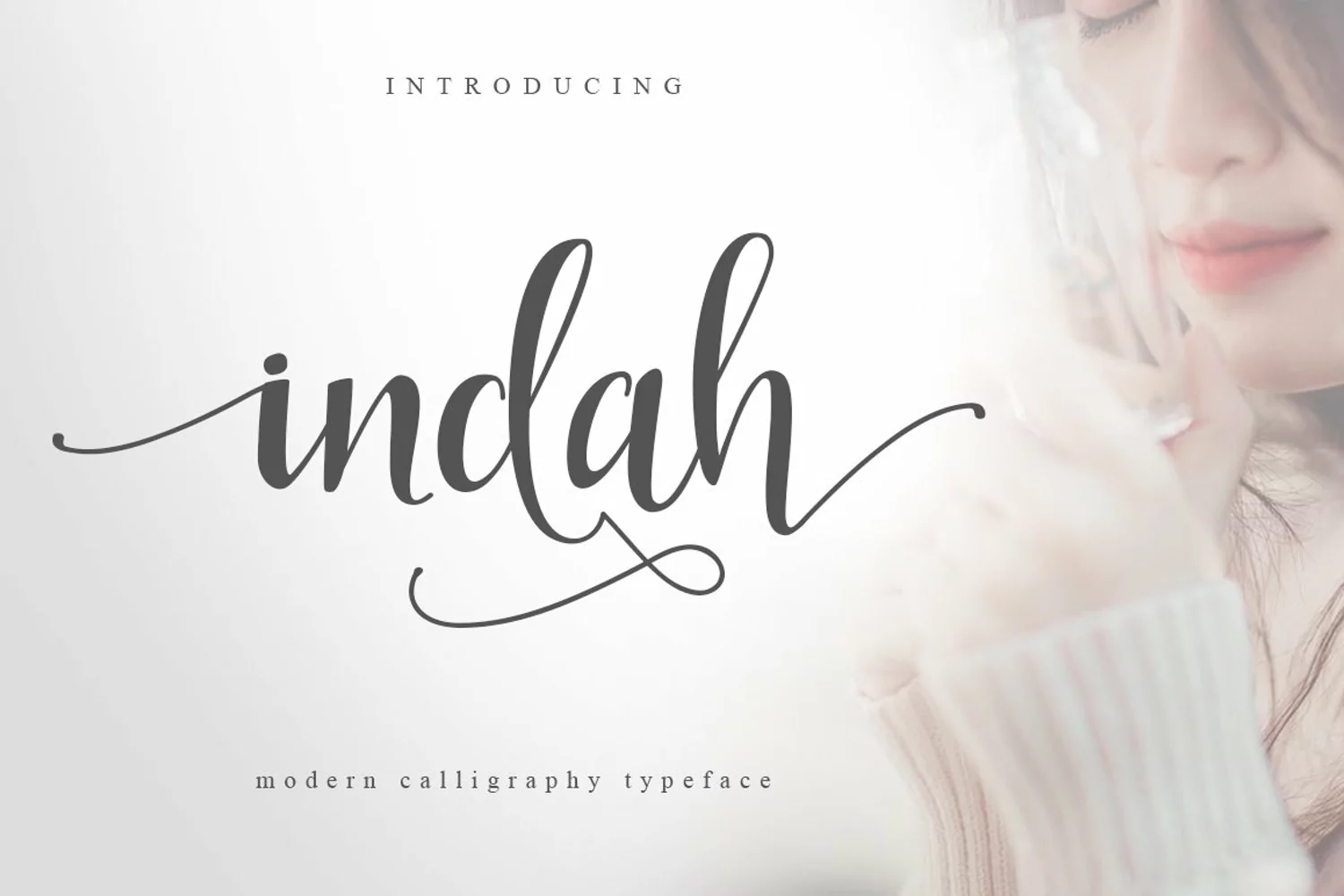
Indah Script is a beautiful handmade script font. With a modern calligraphy style, Indah Script has a lovely flow, almost seeming to dance. This gorgeous font would be a wonderful choice for logos, branding, social media, weddings and apparel.